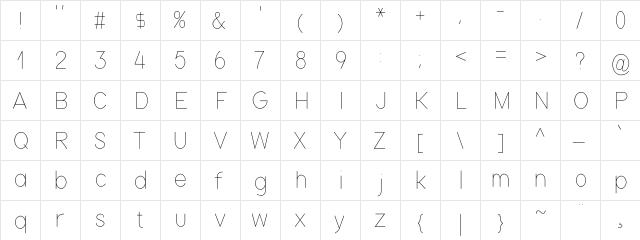
Nordica Plus NordicaClassicUltraLightCond
Design Context for Nordica Plus Typeface
Nordica Plus wears its vintage influences proudly, with letterforms that recall mid-century signage, classic packaging, and nostalgia-driven design. Its slender proportions lend an understated elegance to any composition.
Perfect for vintage-inspired branding, retro packaging, nostalgia campaigns, and period-accurate editorial design.
Font Pairing: Combine Nordica Plus with a simple slab or neutral sans — period-accurate companions reinforce the vintage feel without competing for attention.
Pro Tip: Use Nordica Plus for headlines and pull quotes rather than body copy — its personality is best appreciated in short, focused bursts.